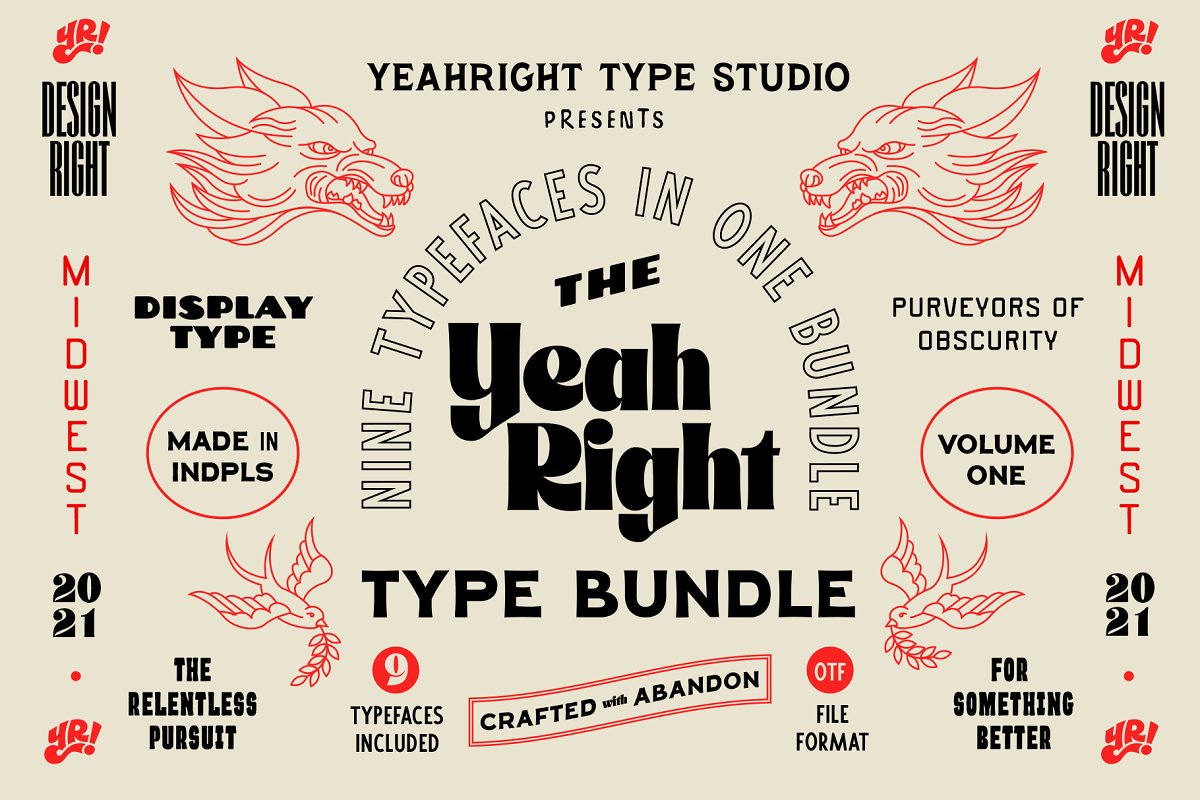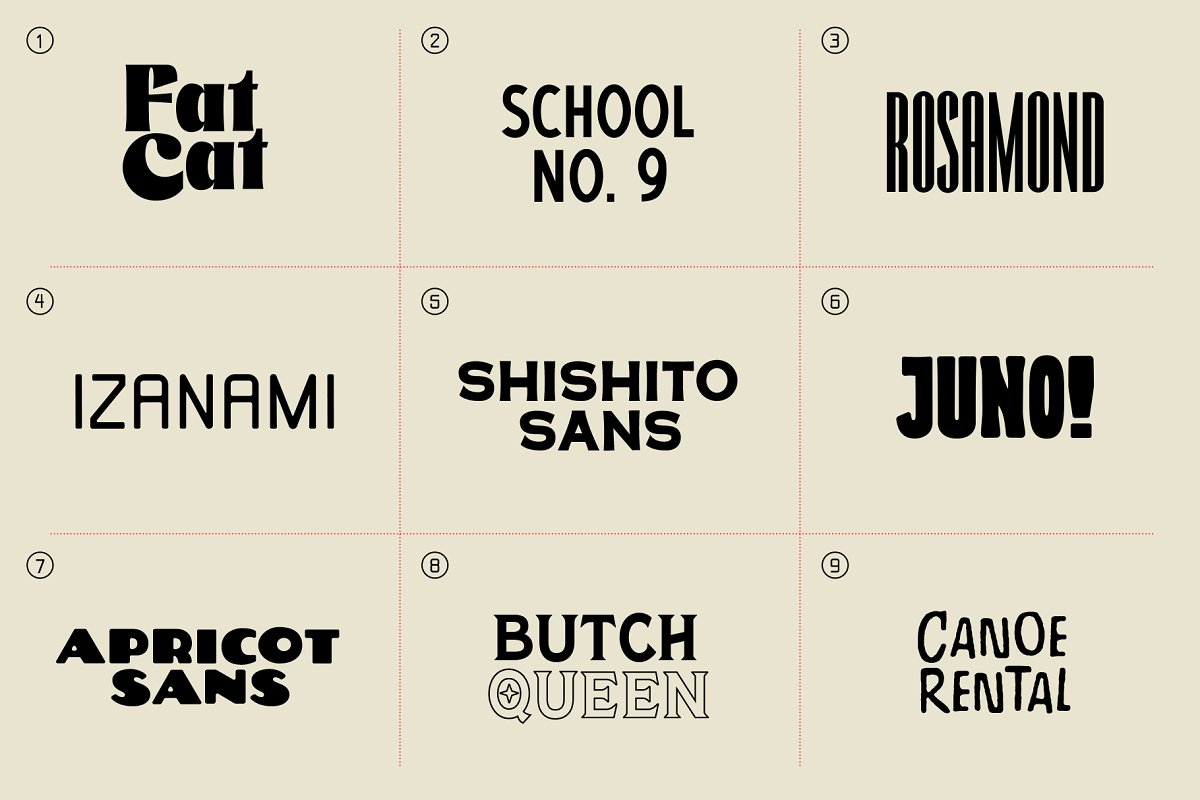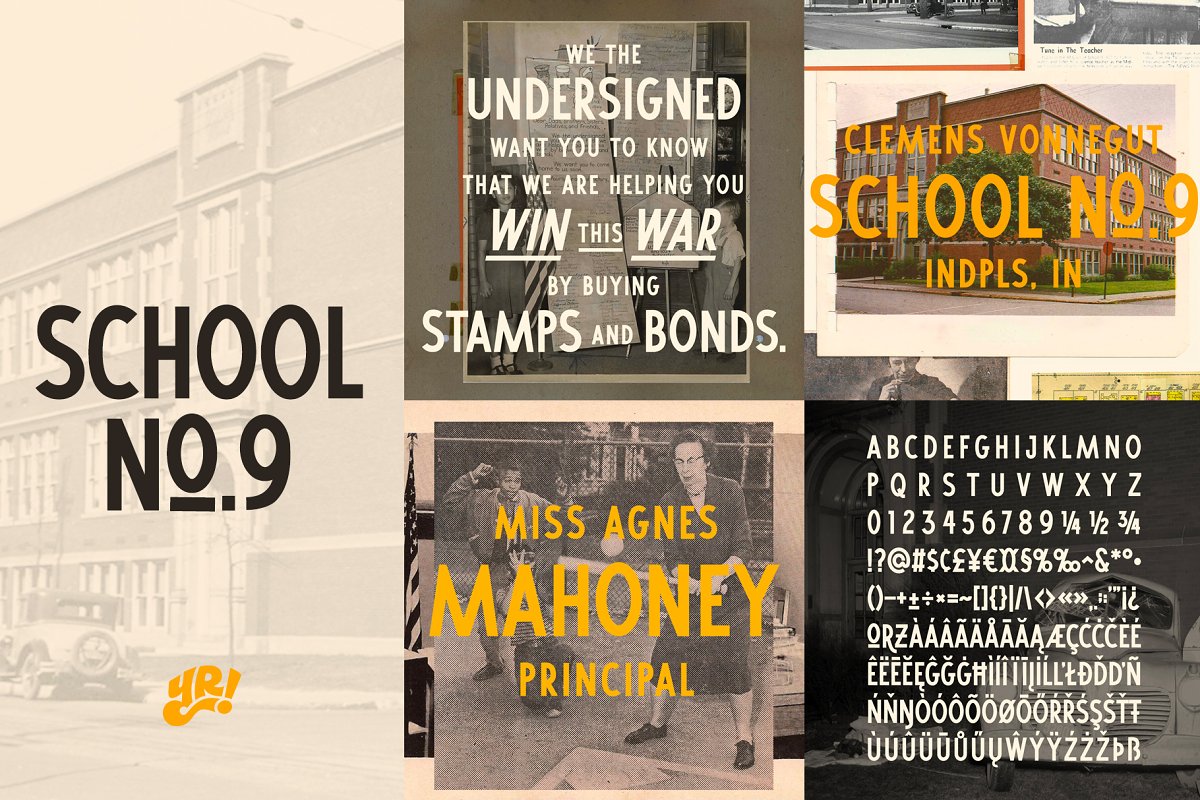
About the The Yeahright Type Bundle Vol Font
Overflowing with variety, personality and quality, the Yeahright Type Bundle Vol, 1 is a STEAL, You’ve got 9, high quality typefaces to tackle just about any style or design project, This bundle was designed to work together, A lot of these faces can be paired for catchwords and contrast, helping you create unique and successful layouts, logos and whatever else you can think up
TYPEFACES INCLUDED:YRT Fat CatYRT School No, 9YRT RosamondYRT IzanamiYRT Shishito SansYRT JunoYRT Apricot SansYRT Butch QueenYRT Canoe Rental